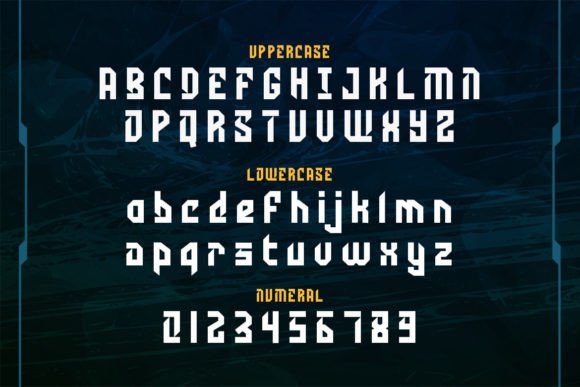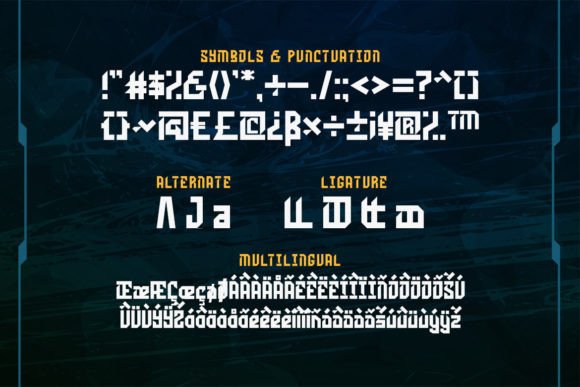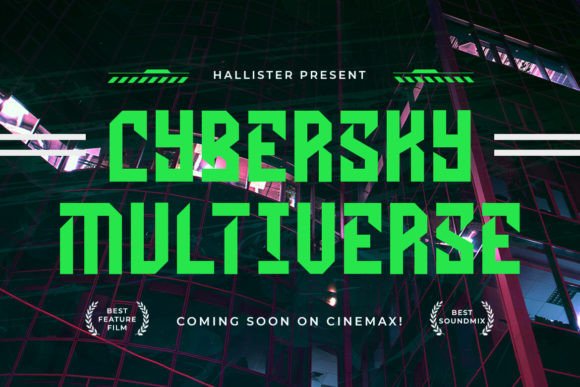
Introduction to Hallister Font
Have you ever been working on a creative project, pouring your heart and soul into every detail, and then that one font comes along and makes everything click? For designers, finding the perfect font can be a game-changer, elevating your design from good to great. That’s exactly what the Hallister Font does – it adds a touch of futuristic flair to your projects, transporting your audience to a cybernetic world filled with neon lights and urban decay.
With its angular letterforms and glitchy details, the Hallister Font is a design resource that’s hard to ignore. Whether you’re working on a game interface, movie title, or album cover, this font brings an unmistakable cyberpunk vibe to your designs. Its edgy style and futuristic flair make it a valuable addition to any designer’s toolkit, and with its high-quality design, you can be sure it will make a powerful statement in your work.
Key Features of Hallister Font
• Unique, modern design ideal for creative projects and designs requiring a unique touch.
• High-quality design resource with a transparent background, allowing for easy layering and manipulation in design software.
• Features a clean, minimalist aesthetic that is perfect for use in logos, branding materials, and other design elements.
• Perfect for designers looking for a high-quality, unique font to elevate their creative project and add a touch of sophistication.
Honest Review: Hallister Font
I recently stumbled upon the Hallister Font, and I must say it’s a great addition to any design project. With its clean and modern aesthetic, it’s perfect for creative projects that require a touch of elegance.
One of the standout features of the Hallister Font is its versatility. It comes with a transparent background, making it easy to use with different images and designs. This is a huge plus for designers who want to create high-quality visual content.
• Clean and modern design aesthetic
• Transparent background for easy customization
However, there are a few limitations to consider: ⚠️
• The font may not be suitable for projects that require bold, dramatic typography
Overall, I’m impressed with the Hallister Font. It’s a high-quality design resource that’s perfect for creative projects. With its versatility and modern aesthetic, it’s definitely worth considering for your next design project.
The Hallister Font is a versatile design resource ideal for creative projects that require a unique and eye-catching touch. With a transparent background and high-quality design, this font is perfect for adding a professional finish to your work.
The Hallister Font is ideal for a wide range of creative projects, including logos, branding materials, and marketing collateral. It’s also perfect for use in social media graphics, presentations, and documents where a unique and eye-catching font is required.